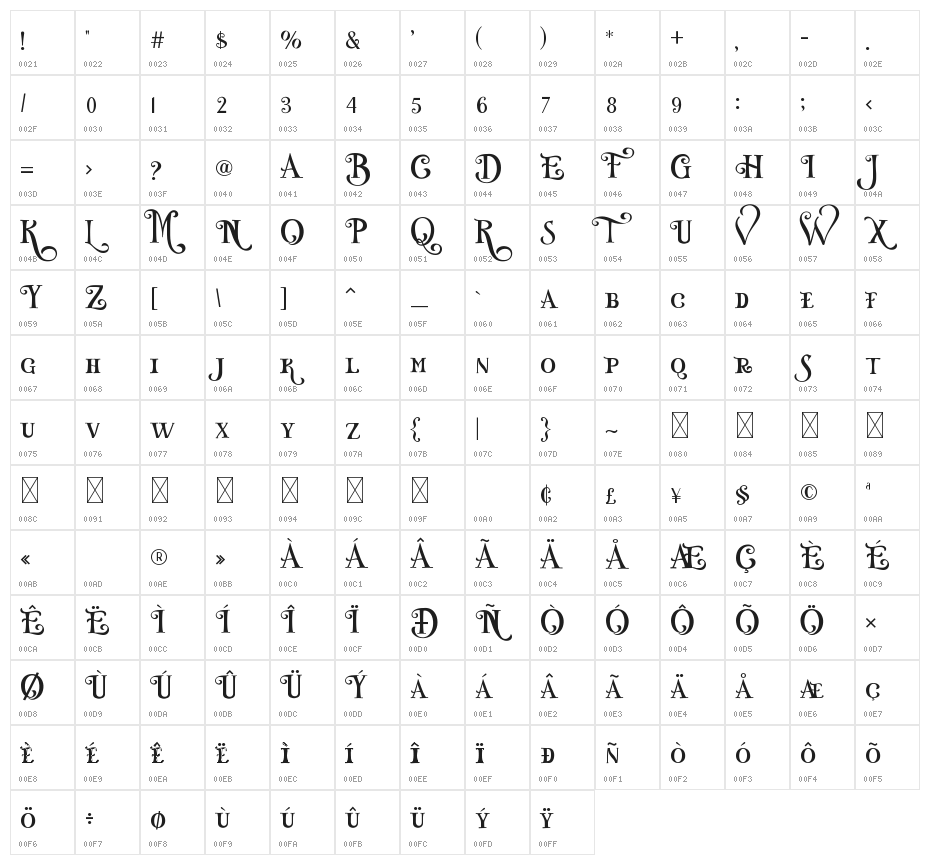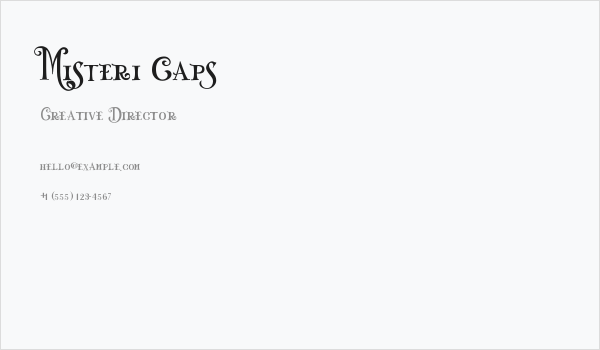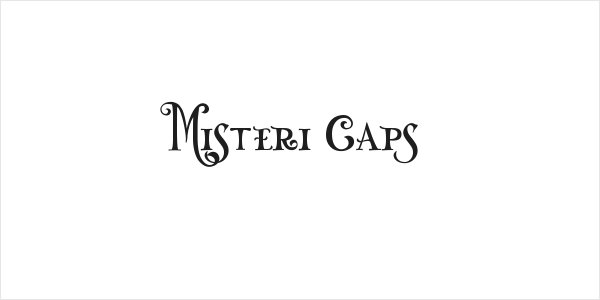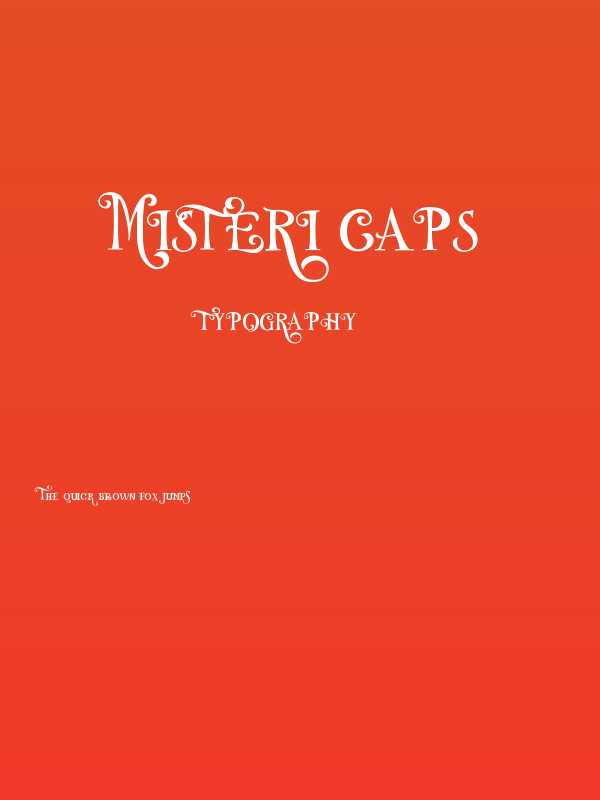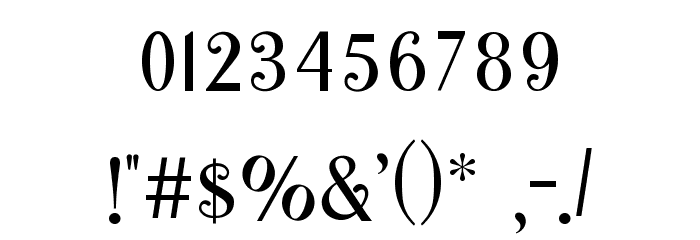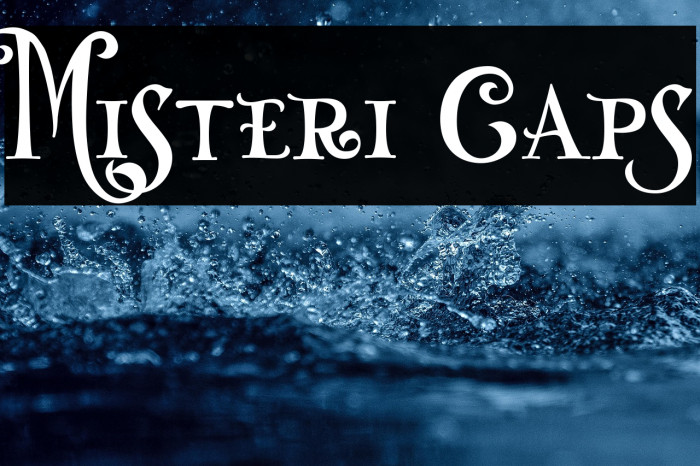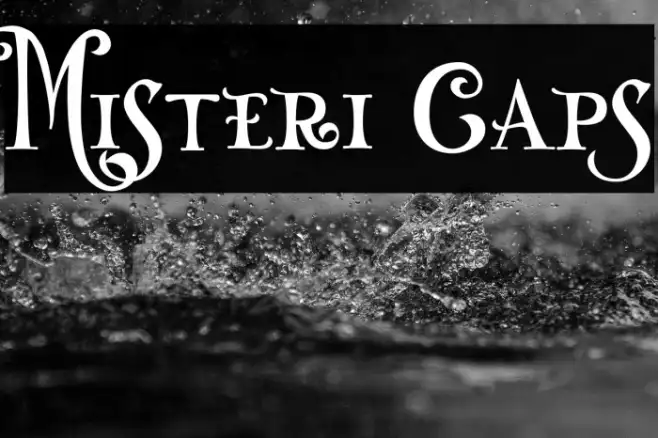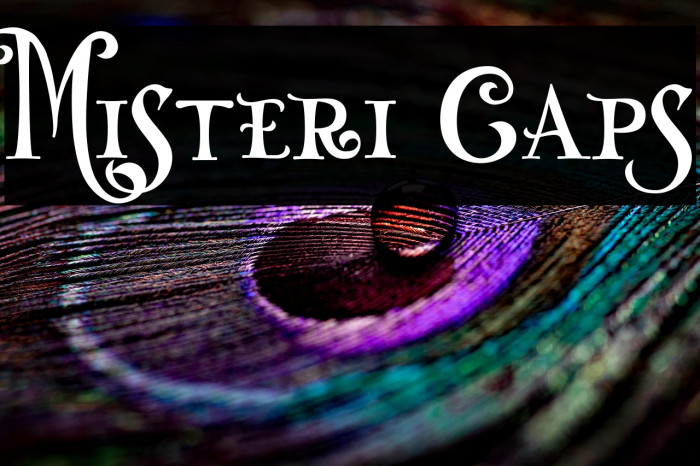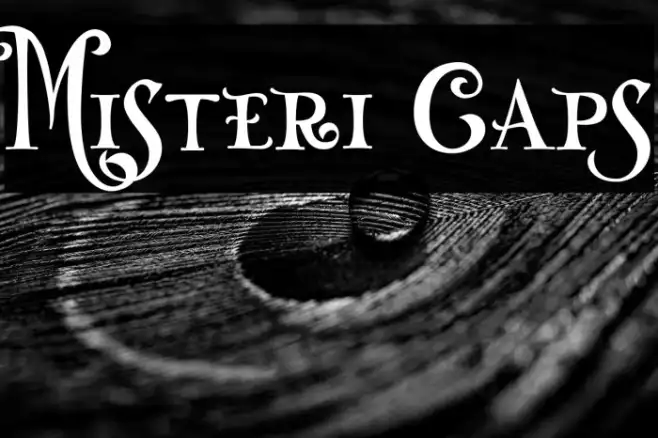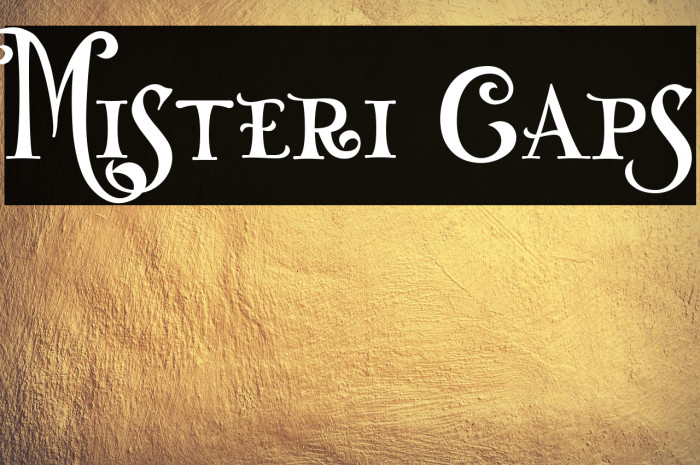
This font features an ornate and decorative style with a whimsical flair, characterized by its elaborate swirls and curls that extend from the main strokes of the letters. The uppercase letters exhibit a playful yet elegant design, with some characters incorporating unique flourishes that add a sense of movement and creativity. The lowercase letters maintain a similar decorative theme, ensuring consistency throughout the typeface. The numerals are styled to match the ornate nature of the alphabet, making them suitable for artistic and creative projects. Special characters are also designed with the same attention to detail, enhancing the overall aesthetic appeal. This font is ideal for projects that require a touch of elegance and creativity, such as invitations, greeting cards, and artistic branding.
| Use Case | Headlines, Artistic branding, Invitations |
| Proposed Projects | Ideal for invitations, greeting cards, artistic branding, and decorative headlines. |